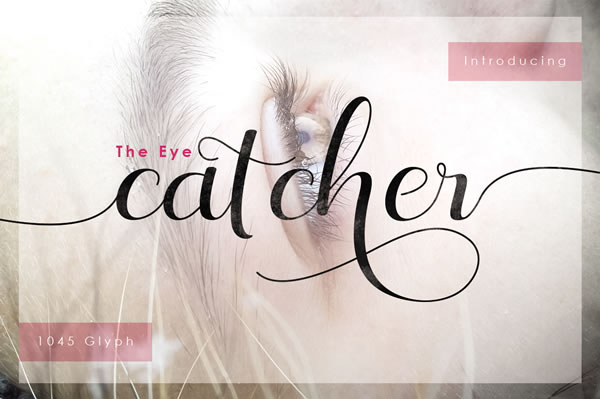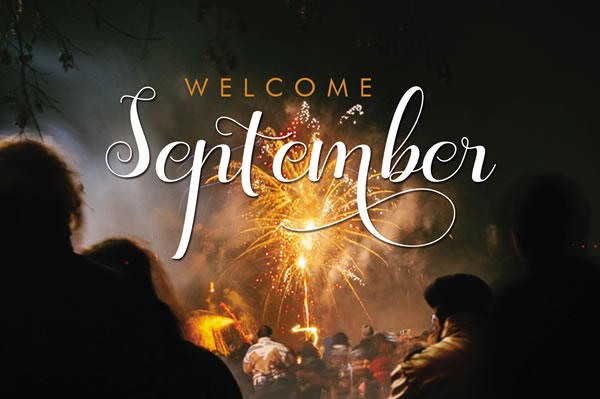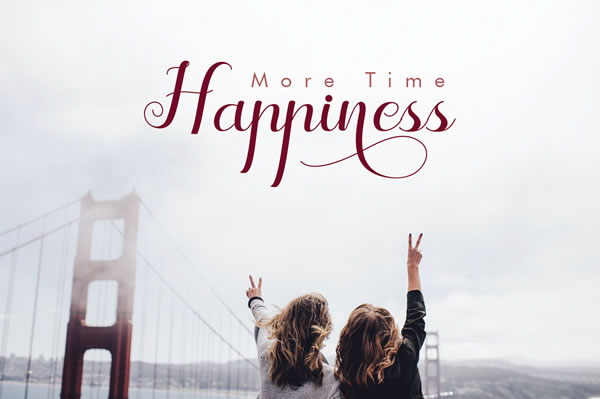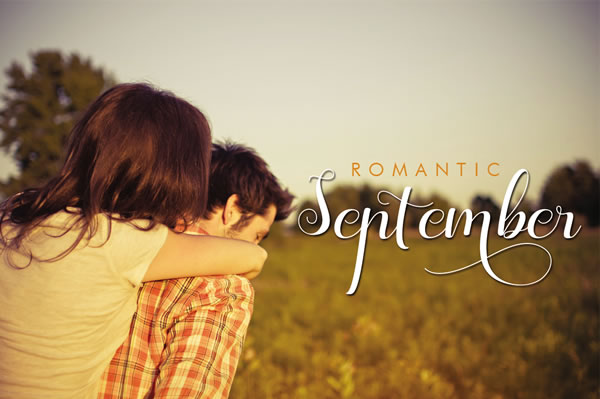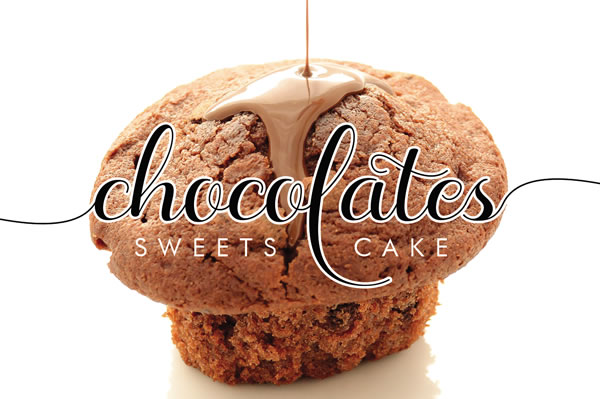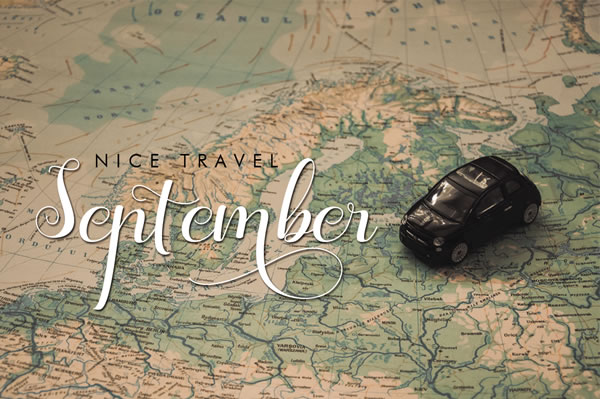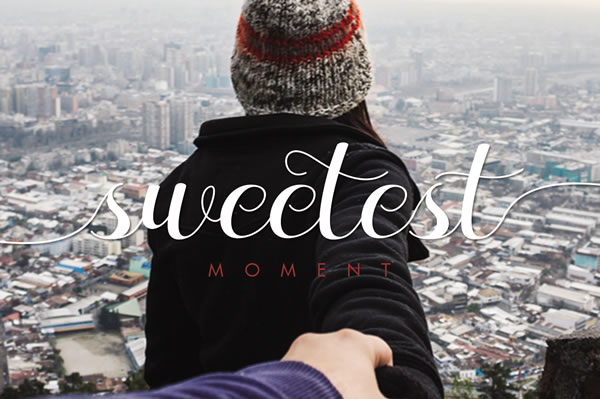
The Eye Catcher Font
About The Eye Catcher Font
The stunning Eye Catcher font comes with over 1000 unique glyphs and is a professional font that works very well in many types of projects.
The Eye Catcher font features:
Standard Uppercase & Lowercase characthers
Alternative Uppercase & Lowercase characters
International Languange Support
Punctuation & Numbers
PUA Unicode Range (Private Use Area)
Standard Ligatures
Contextual Alternates
Stylistic Alternates
Stylistic Set 1-26
Caps Swash
Open Type Pro support
Swashes